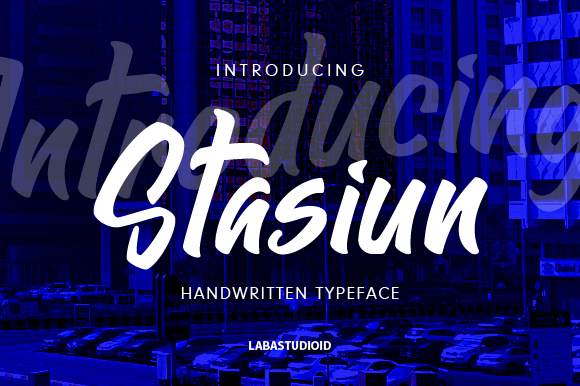
Preview and download Stasiun Font. Created by Labastudioid in Script Brush styles with Free for personal use license.
Stasiun Font inspired by year-end weather in my tropical place. Only at this time the first rain as a marker of the start of the season had fallen and grass and young shoots began to grow. The young grass and shoots are the real inspiration for Stasiun Font. |